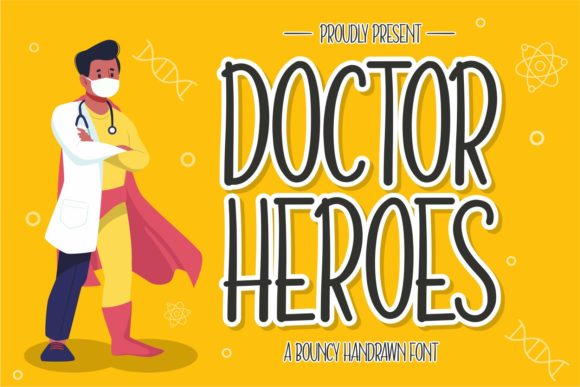
Introducing Doctor Heroes Font - The Ultimate Typographic Masterpiece for Modern Resumes and Beyond!
In a world where first impressions matter, your resume holds the key to unlocking your dream job. With Doctor Heroes Font, you can craft a resume that not only showcases your skills and experiences but also leaves a lasting impression on potential employers. This captivating display font exudes fun, quirkiness, and authenticity, making it the perfect choice for those who want to stand out from the crowd.
Doctor Heroes Font is the brainchild of zainstudio, a renowned font designer known for creating fonts that are both visually appealing and highly functional. With its clean lines and a touch of quirkiness, Doctor Heroes Font is meticulously designed to grab attention and leave a lasting impact. Whether you're a seasoned professional or a fresh graduate, this font will amplify your resume's visual appeal and make it shine.
But Doctor Heroes Font isn't just limited to resumes. Its versatility extends to a wide range of creative projects, including logos, branding, social media designs, and crafty DIY projects. Unleash your creativity and let Doctor Heroes Font add a touch of charm and personality to your designs.
Here's why Doctor Heroes Font is the perfect choice for you:
- Radiate Confidence: Doctor Heroes Font exudes confidence and professionalism, giving your resume the edge it needs to impress potential employers.
- Make a Statement: Stand out from the crowd with a resume that reflects your unique personality and style. Doctor Heroes Font will make sure your resume gets noticed.
- Unleash Your Creativity: Explore endless possibilities with Doctor Heroes Font. From logos and branding to social media designs and DIY projects, this font will bring your creative visions to life.
- Easy to Use: Doctor Heroes Font is incredibly user-friendly, making it perfect for both experienced designers and those new to the world of typography.